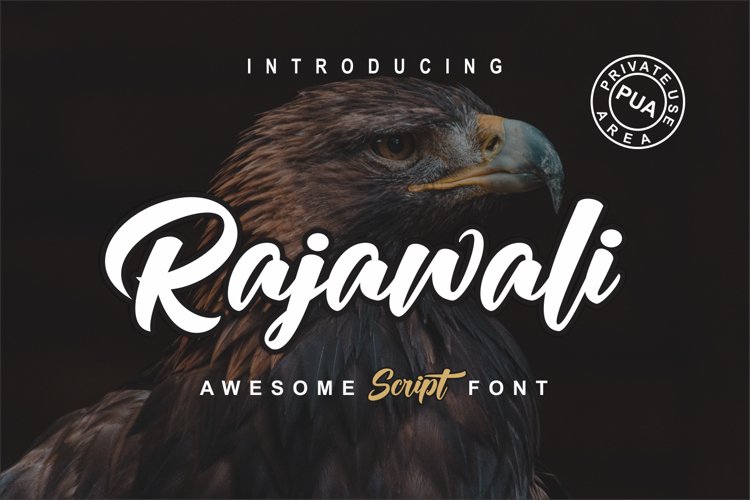
Rajawali
Rajawali is Modern Handwritten script. Rajawali is a logotype font so this font is great for Branding, Logo Design, Lettering,Logotype, Clothing, Poster, magazine and other design project.